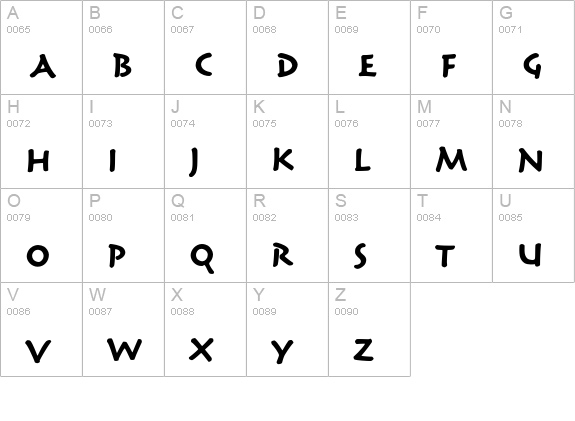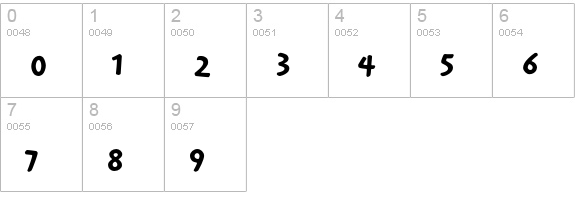
Reliq Std Bold Active is a strong, high-contrast variant in the Reliq typeface family \xE2\x80\x94 well suited to headlines, attention-grabbing titles, and strong calls-to-action.
Reliq Std Bold Active is a dynamic and eye-catching font that is perfect for creating bold and impactful designs. This font exudes a sense of energy and movement with its strong and thick letterforms. Its bold weight makes it ideal for headlines, posters, and other display purposes where you want to grab the viewer's attention. With its clean and modern look, Reliq Std Bold Active is versatile and can be used in a variety of design projects. Whether you are designing a logo, a website, or a marketing collateral, this font will add a touch of professionalism and style to your work. One of the best things about Reliq Std Bold Active is that it is freely available to download at FontsMarket.com. This means that you can easily access and use this font without any restrictions. Whether you are a professional designer or a hobbyist, you can enjoy the benefits of this font without breaking the bank. So why wait? Take your designs to the next level with Reliq Std Bold Active. Download it for free at FontsMarket.com and start creating stunning and impactful designs today.